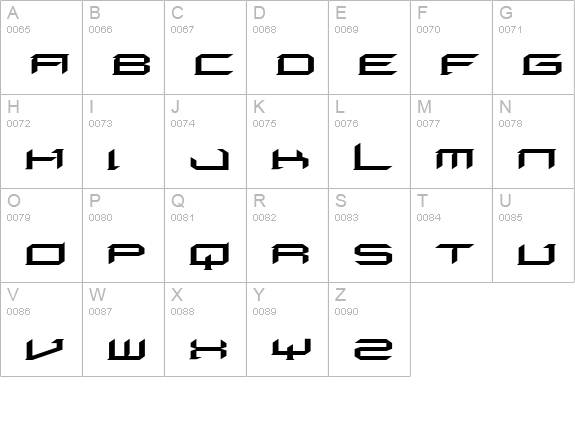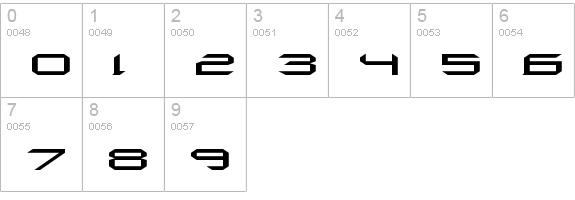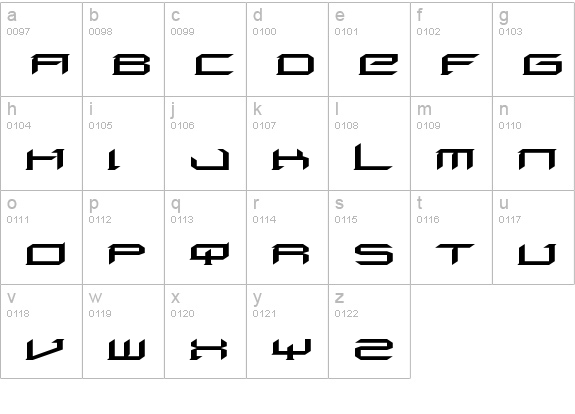
Digeria Normal Font Details
Digeria Normal is the standard, neutral variant in the Digeria typeface family \xE2\x80\x94 well suited to general body text, paragraphs, and standard typographic work.